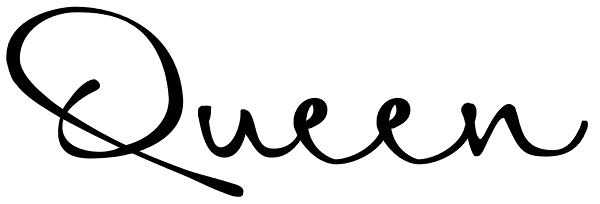
Queen
Queen is based on the designer's own hand. It is a handwriting font with a difference (just like Affable). It has all the vigor and spontaneity of a hurried note, combined with a skilled and precise joining of characters to give a true cursive...